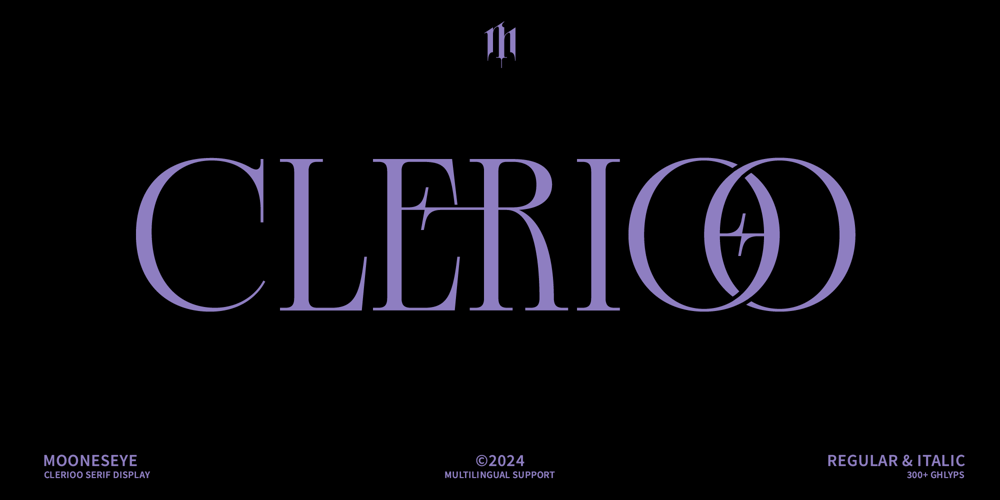
Clerioo Serif Font Family was designed by Elhaq Farid and published by Mooneseye Studio. Clerioo Serif contains 2 styles and family package options. Introducing Clerioo Typeface, a serif display typeface that defies expectations. This unique font strikes a perfect balance between sleek modernity and classic serif elegance. Its versatile nature allows it to adapt to various design styles, making it an invaluable asset for any designer’s toolkit.